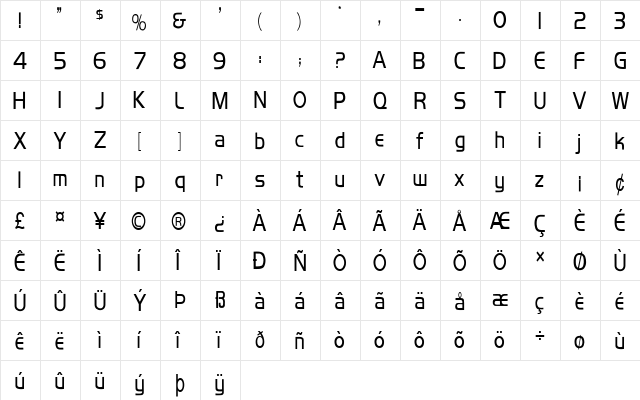
FZ BASIC 8 COND Normal
Design Context for FZ BASIC 8 COND Typeface
FZ BASIC 8 COND offers clean, dependable letterforms without strong stylistic allegiance, making it a practical choice for designers who need flexibility. Its narrow stance lets it pack a punch even in space-constrained designs.